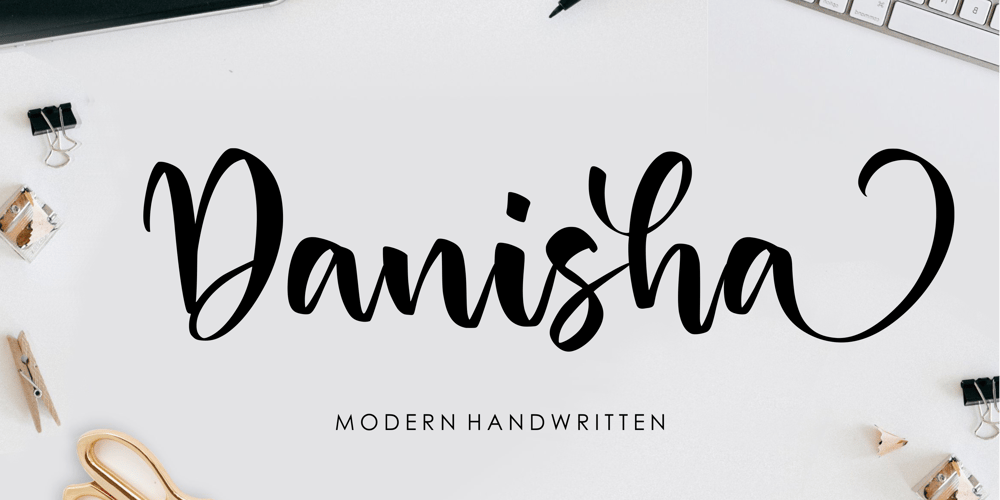
Danisha Font Family was designed by Restu Angga and published by Balpirick. Danisha contains 1 styles and family package options. Danisha is a Modern Handwritten Font.Danisha is perfect for product packaging, branding project, megazine, social media, wedding, or just used to express words above the background.Danisha also multilingual support.Lowercase font Stylistic Alternates Ligatures Symbols & Punctuation OpenType Features.Enjoy the font, feel free to comment or feedback, send me PM or email.Thank you!